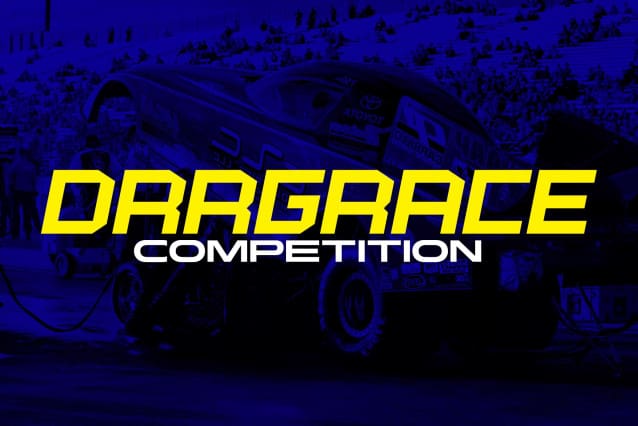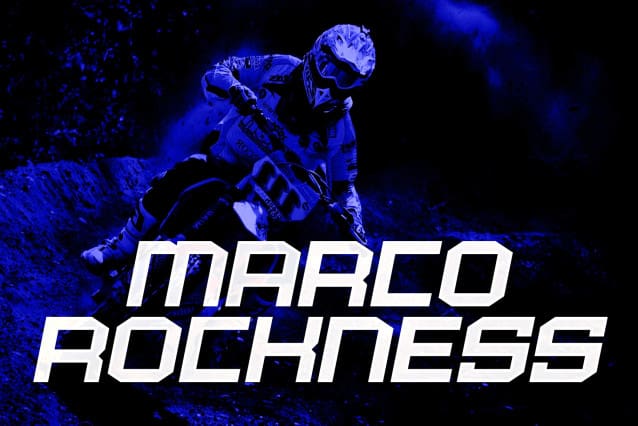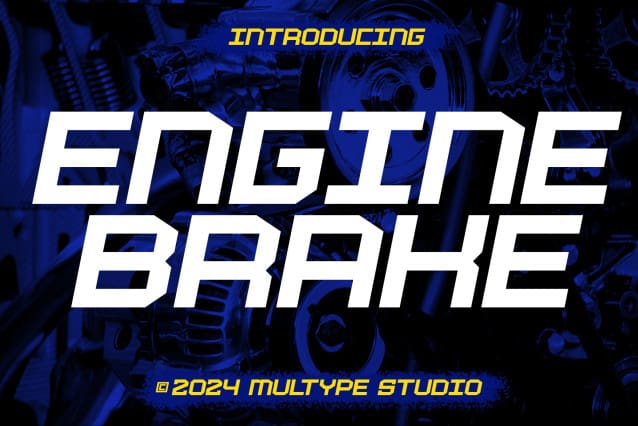
Racing Engine Brake Font
Racing Engine Brake Font. The slant makes it look great for racing projects. In the hope of adding visual speed.
RacingEngine Brake is perfect for racing product logos, racing game covers, sporting events, automotive posters, automotive magazine covers, branding, product designs, labels and other creative projects.